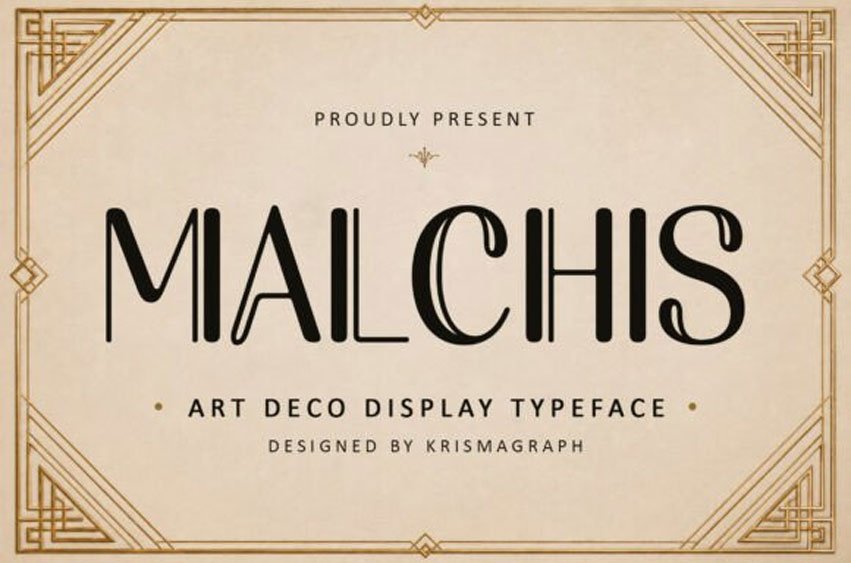
Malchis Font is a luxury Art Deco display typeface inspired by the glamour and sophistication of the 1920s. Combining elegant geometric forms, refined curves, and architectural details, Malchis delivers a timeless aesthetic with a contemporary finish.
Its clean lines and distinctive Art Deco styling create a luxurious atmosphere, making it ideal for premium branding and editorial design. Whether used for striking headlines or elegant visual identities, Malchis provides a perfect balance between vintage charm and modern refinement.